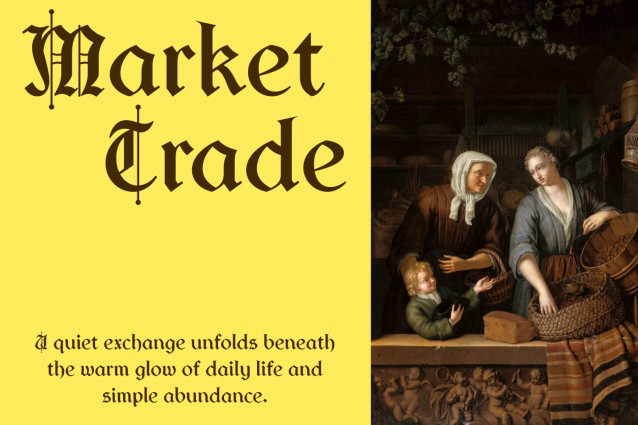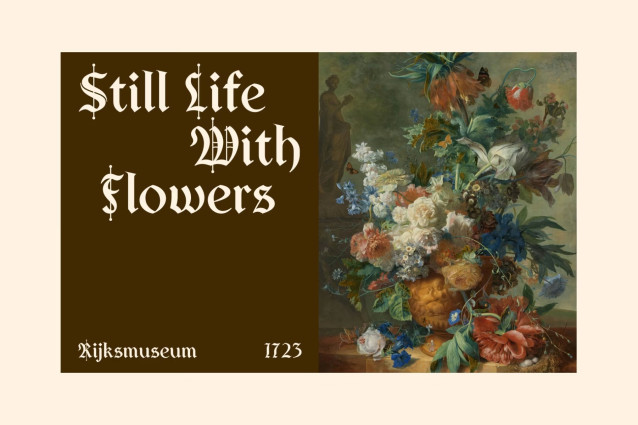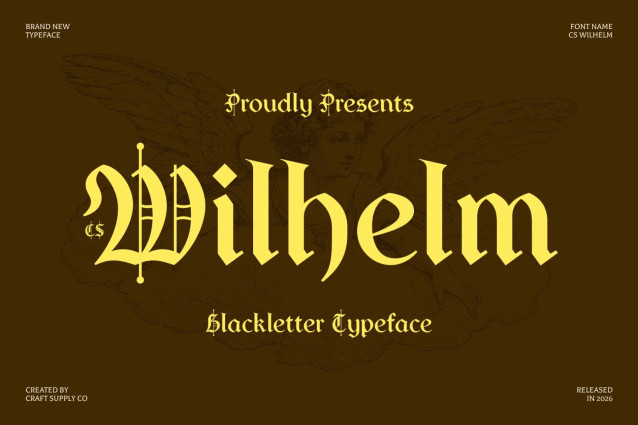
CS Wilhelm – Classic Blackletter Display Font: Where Gothic Tradition Meets Timeless Elegance
Elegant Gothic Letterforms with Historic Beauty
This is a classic blackletter display font featuring elegant Gothic letterforms inspired by the rich tradition of medieval calligraphy. Its ornate strokes, sharp details, and balanced proportions capture the grandeur of historical manuscripts, creating typography that feels authentic, refined, and visually commanding. Every character reflects the artistry and craftsmanship of traditional Blackletter design.
Timeless Heritage with Refined Presence
Rooted in centuries of typographic history, this font brings a sense of prestige and permanence to modern creative work. Its carefully refined construction preserves the expressive beauty of Gothic lettering while ensuring strong visual clarity, making it equally suitable for classic and contemporary design applications.
Dramatic Typography with Lasting Impact
This font creates a distinctive visual identity that conveys authority, tradition, and sophistication. Whether used for striking headlines or iconic brand marks, its timeless aesthetic leaves a memorable impression while celebrating the enduring appeal of medieval typography.